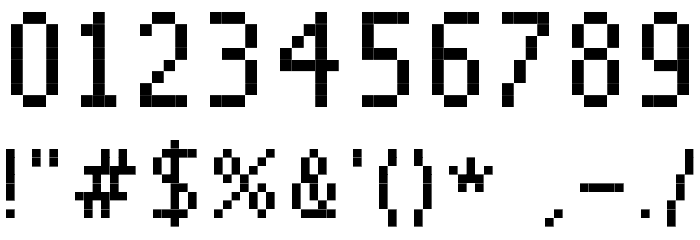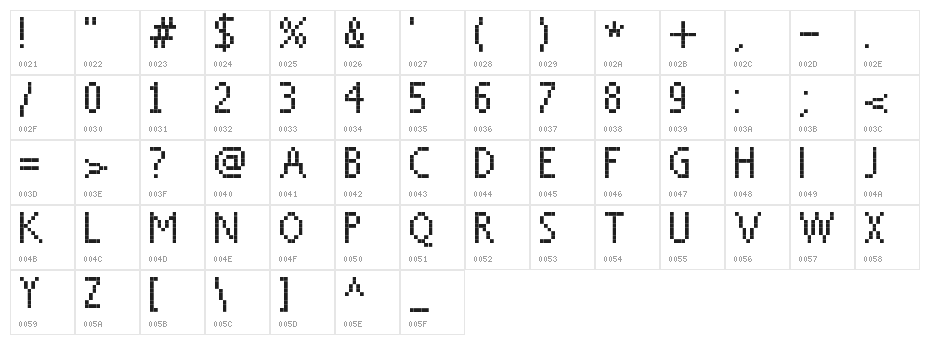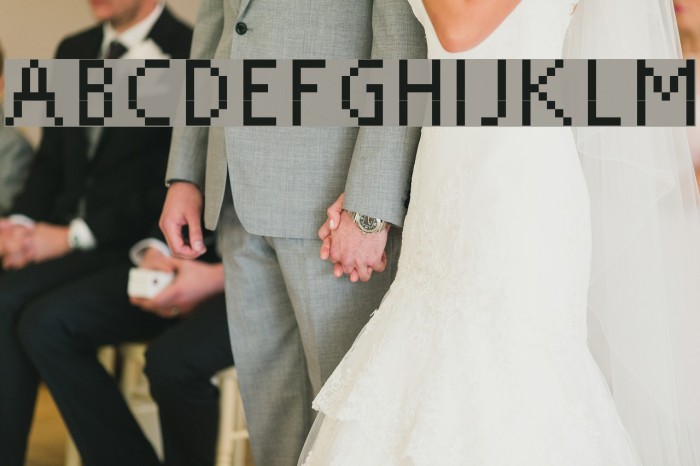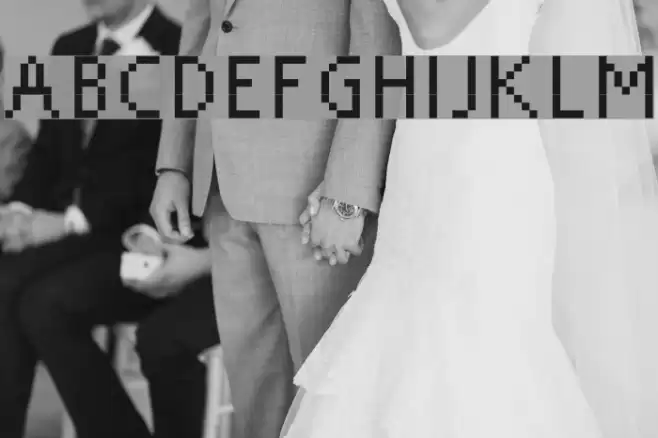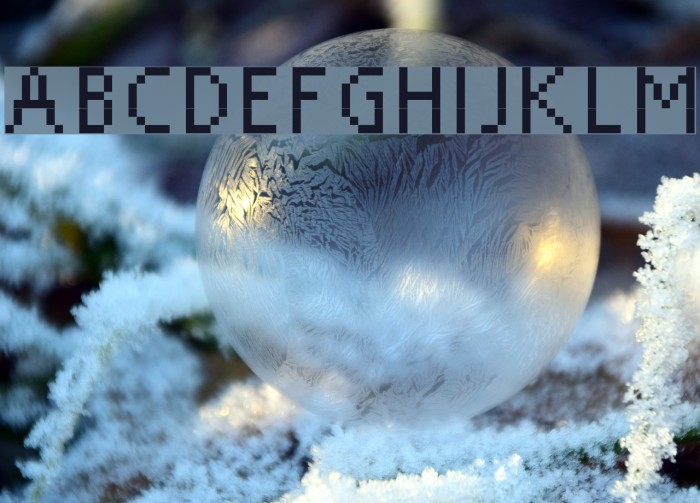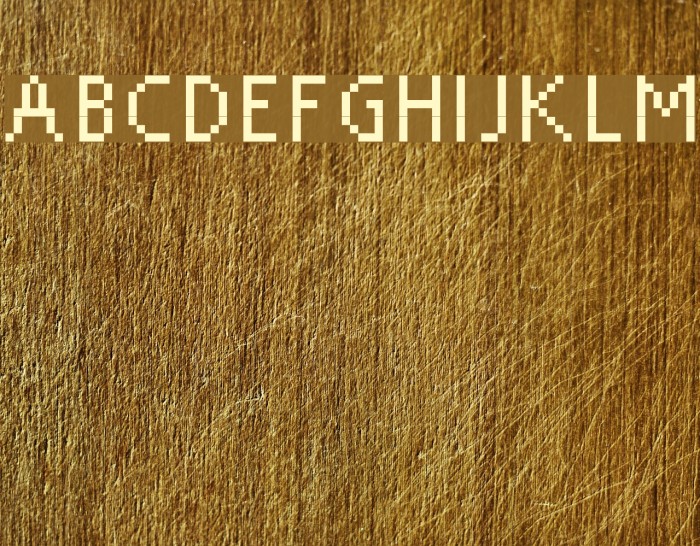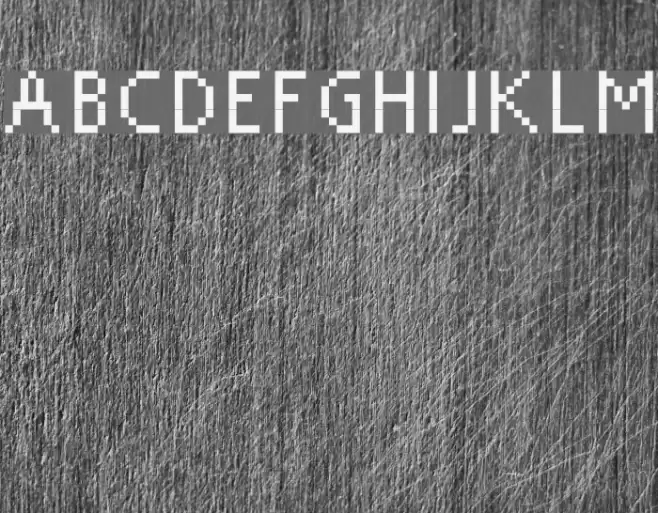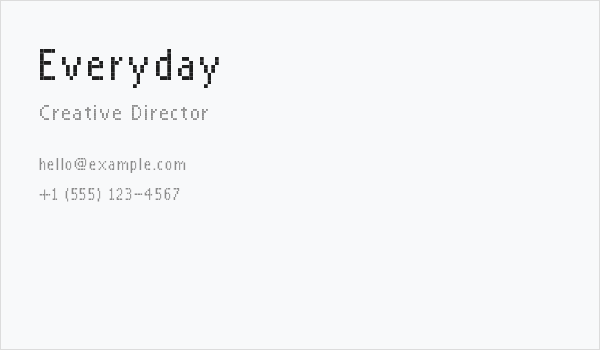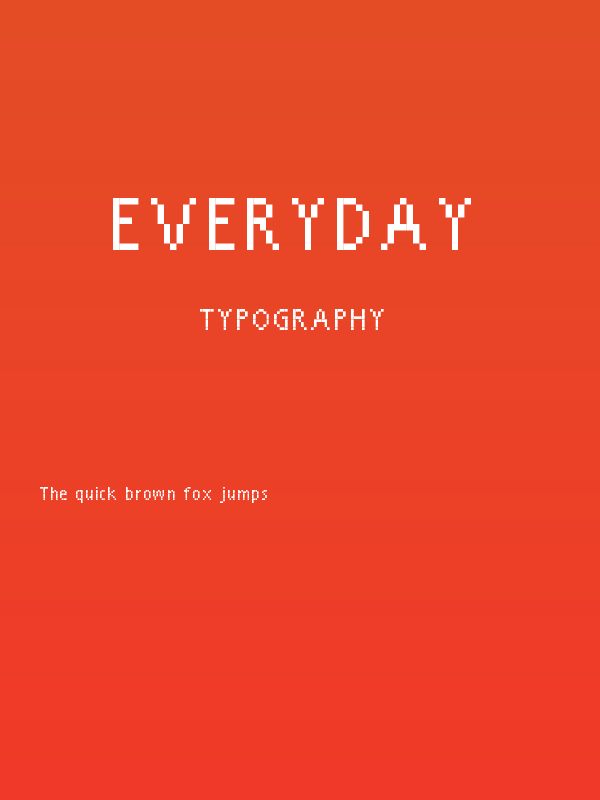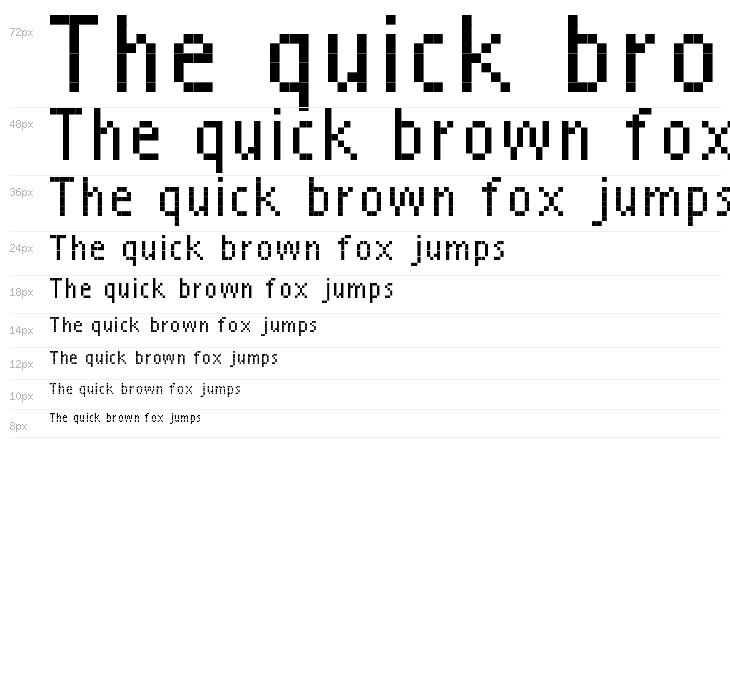
Everyday Font
Everyday Description
This font features a pixelated, blocky design reminiscent of early digital displays and video games. Each character is constructed with a grid-like precision, giving it a distinctly retro and technological feel. The uppercase and lowercase letters maintain a consistent height, contributing to a uniform appearance. Numbers and special characters are similarly styled, ensuring a cohesive look across all glyphs. The simplicity and clarity of this font make it ideal for projects that require a nostalgic or digital aesthetic, while its straightforward design ensures readability even at smaller sizes.
| Use Case | Headlines, Logos, Digital displays |
| Proposed Projects | Ideal for video game design, retro-themed graphics, digital art projects, and any creative work that seeks to evoke a sense of nostalgia or early digital technology. |